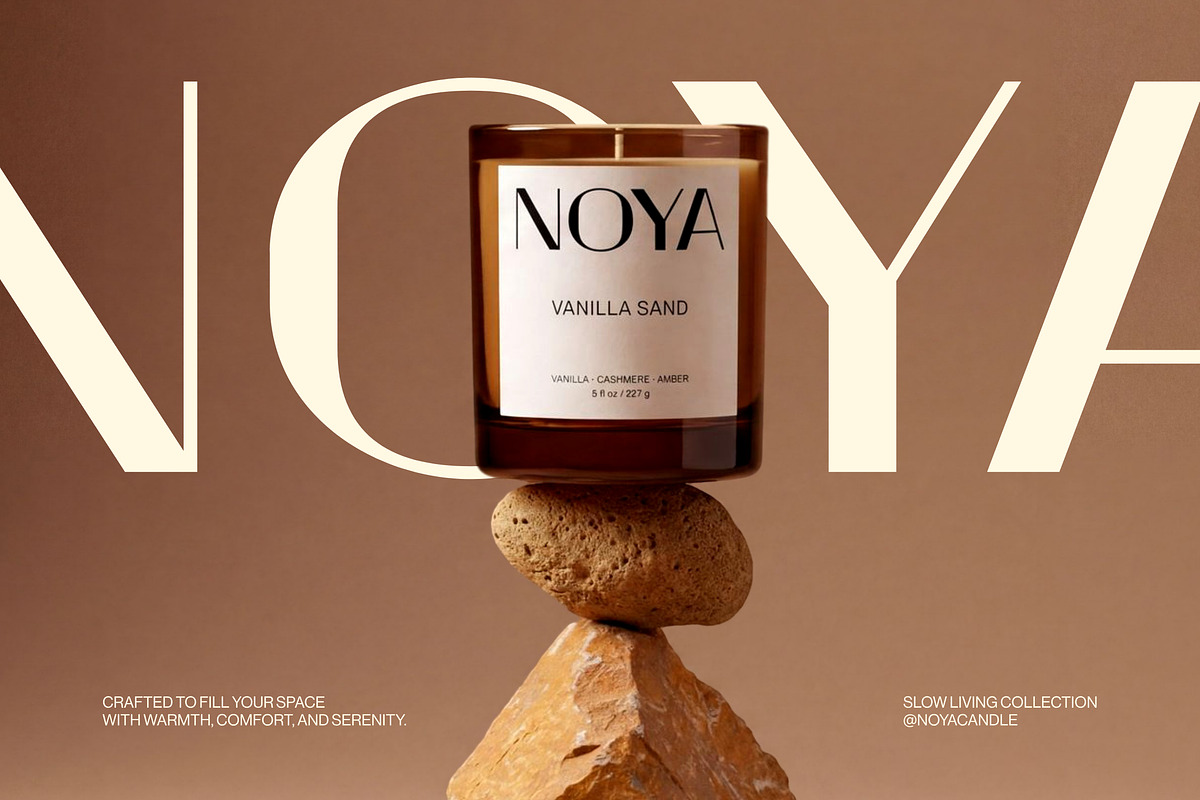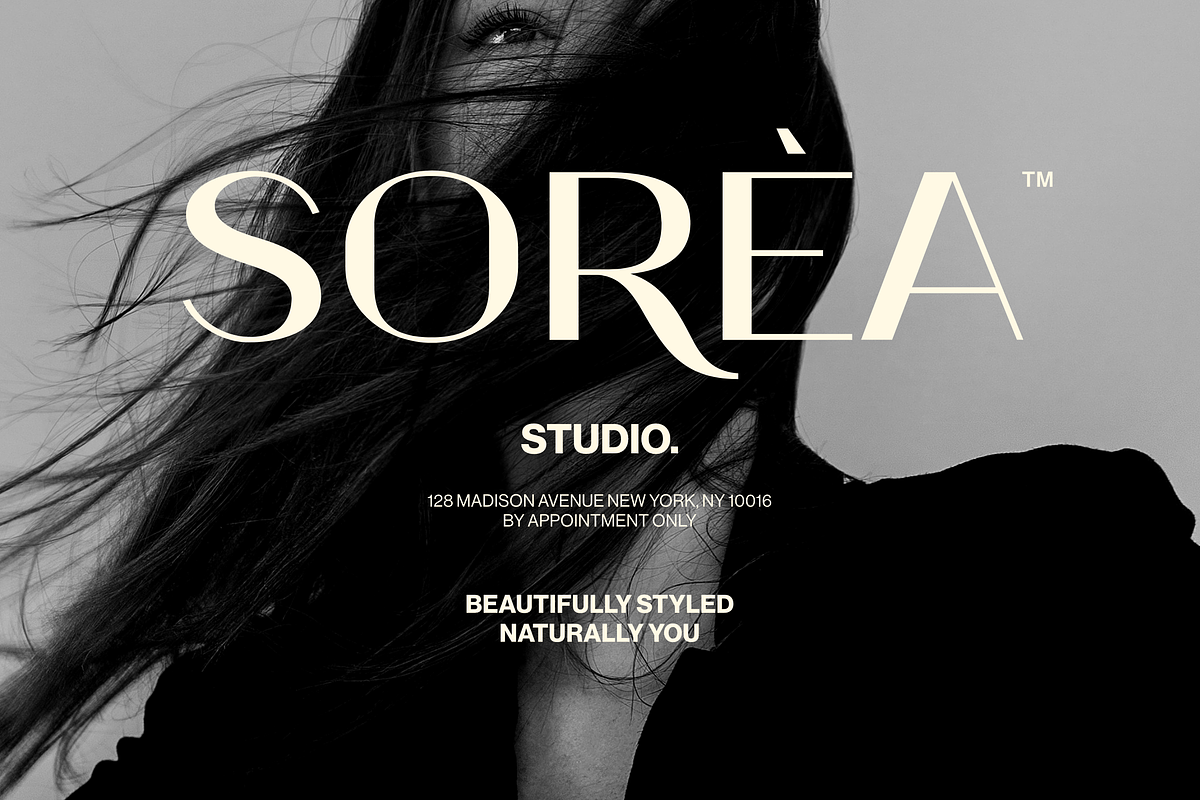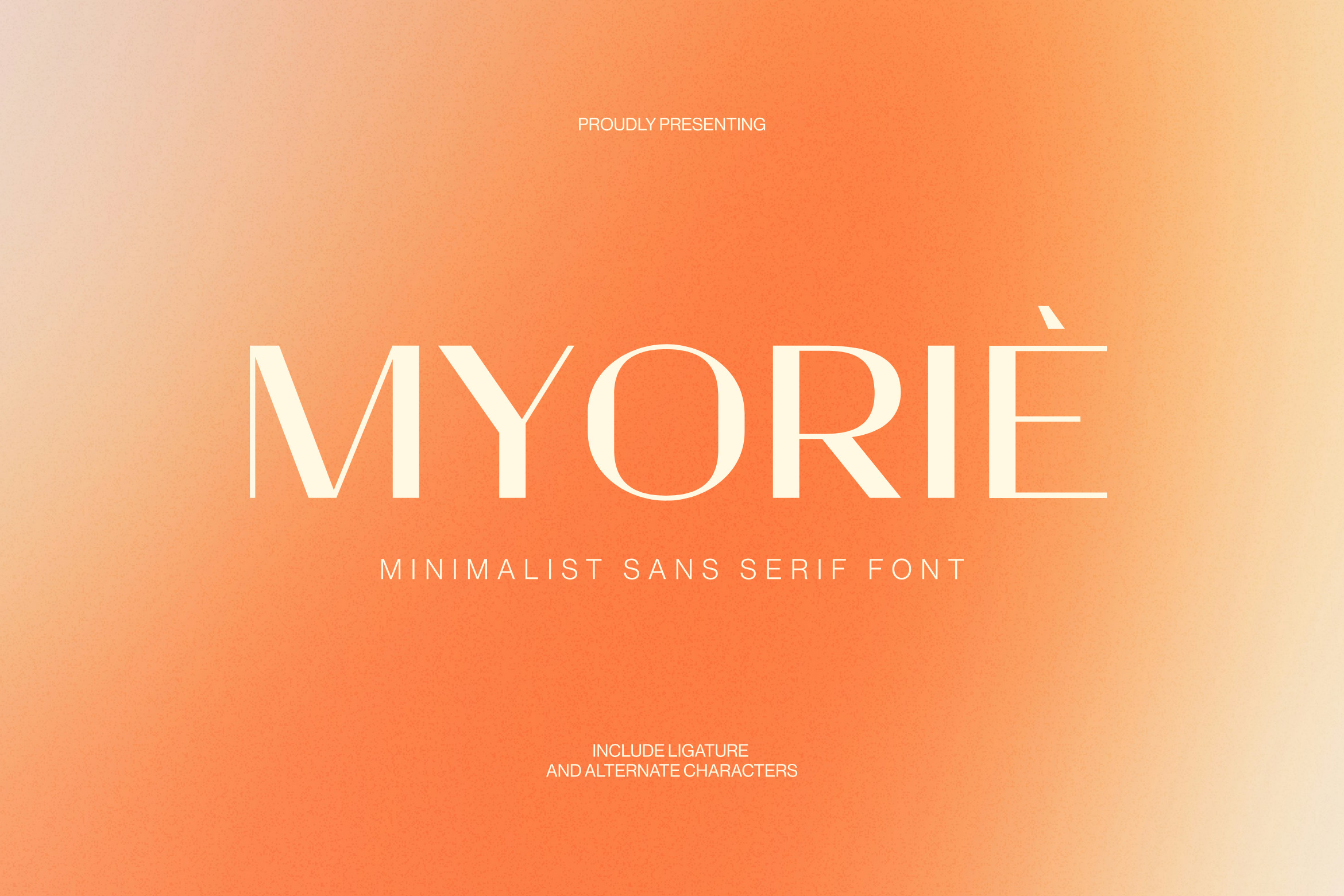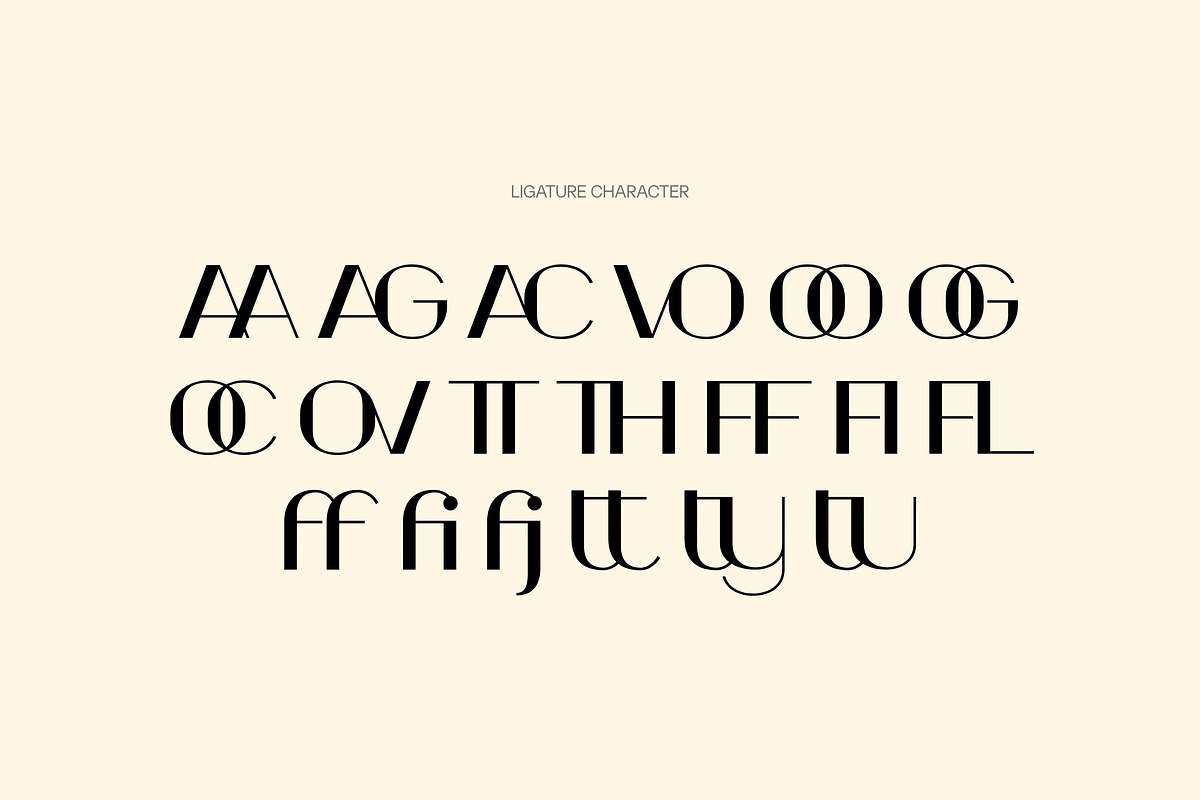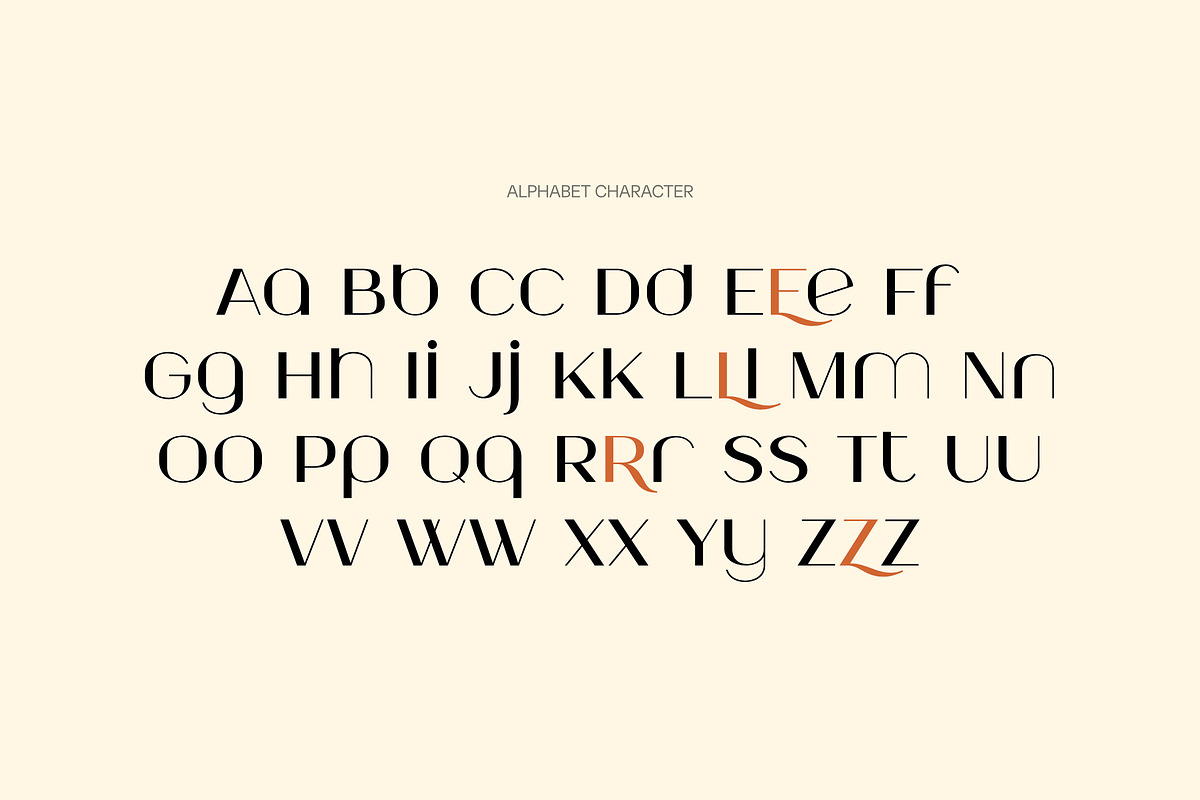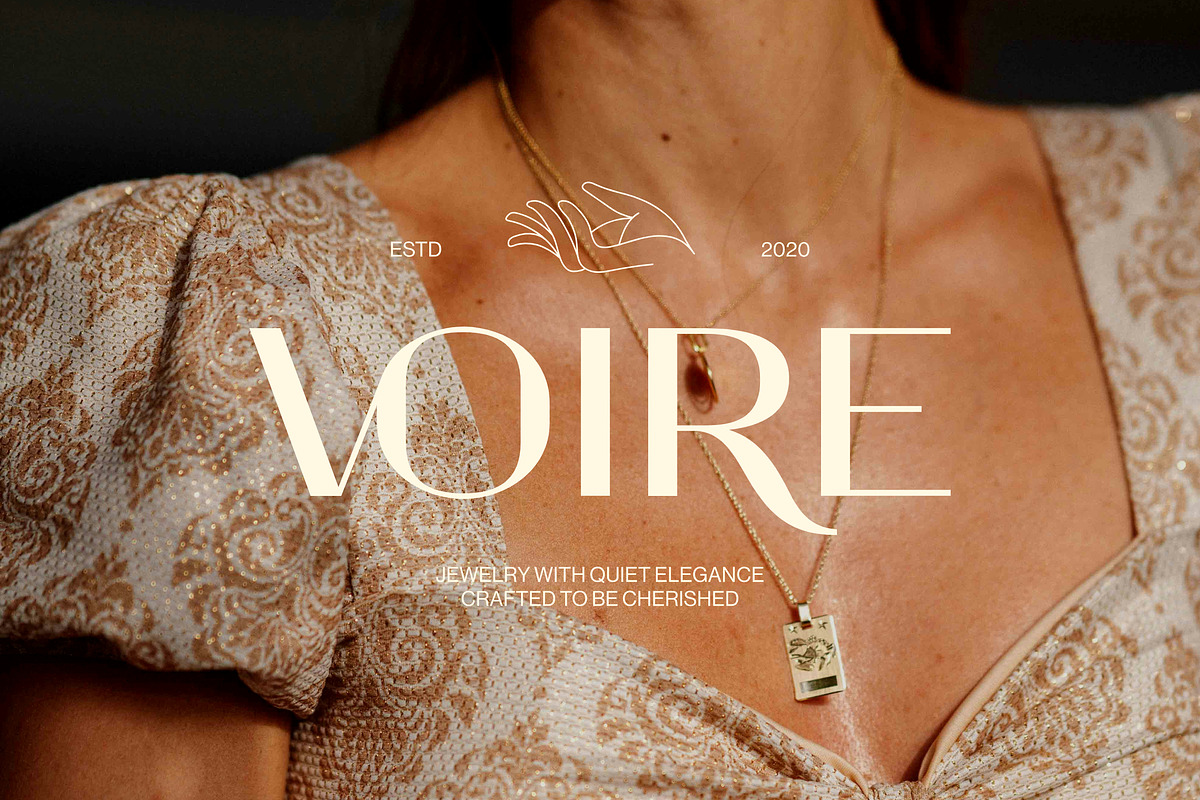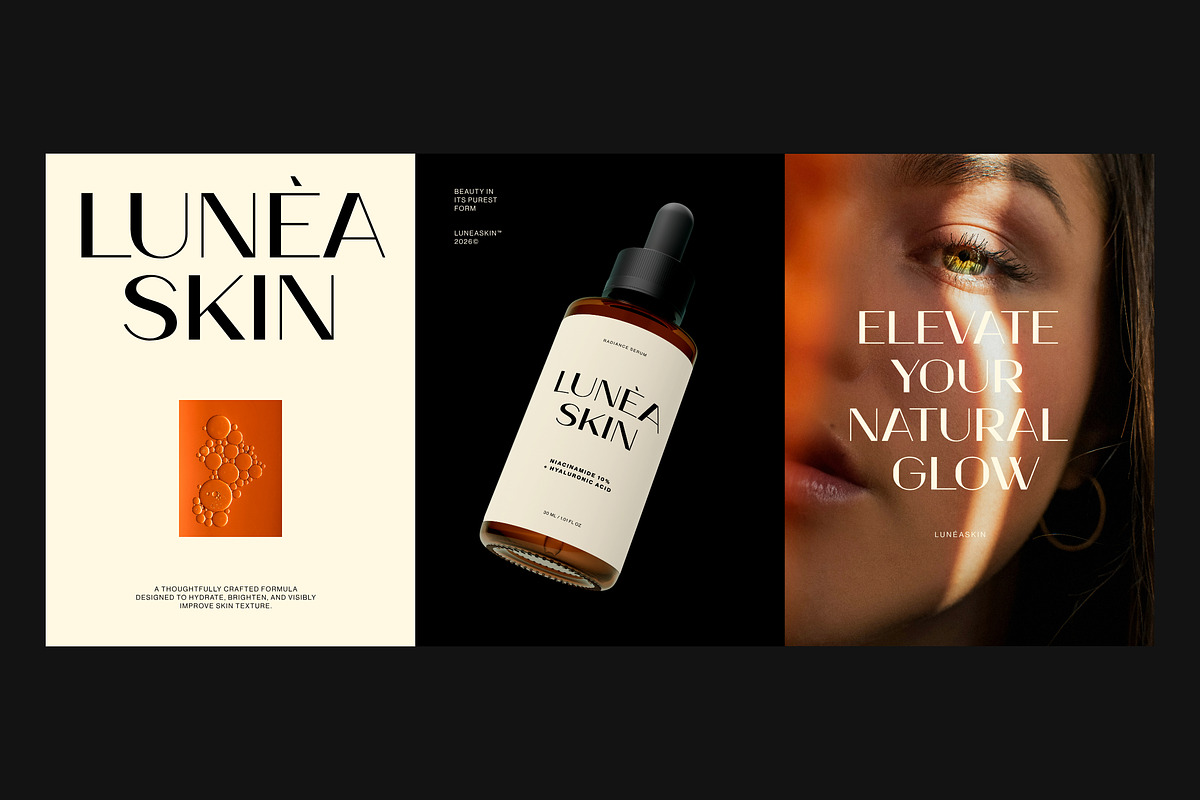
Myorie Aesthetic Typeface
Introduce a touch of modern luxury and quiet sophistication to your designs with Myorie, a minimalist sans serif display font engineered for aesthetics. Balancing striking contrast between thick and thin strokes, geometric proportions, Myorie brings an immediate sense of quiet luxury, editorial prestige, and aesthetics to any creative project.
Whether you are building a boutique brand identity, designing sleek luxury brand identity, logo, editorial layouts, or product packaging. Myorie offers the perfect blend of structural minimalism and artistic flair.
Branding & Identity: Logos, and business cards for skincare, beauty, wellness, luxury real estate, and jewelry brands.
Packaging Design: Candle labels, perfume bottles, skincare boxes, and premium merchandise.
Editorial and Layouts: Fashion magazine headers, lookbooks, and digital covers.
Social Media & Advertising: Elegant quote graphics, Instagram branding, and promotional imagery.
Uppercase and Lowecase Characters.
Numerals and Punctuations.
Alternates and Ligatures.
Multilingual Support.